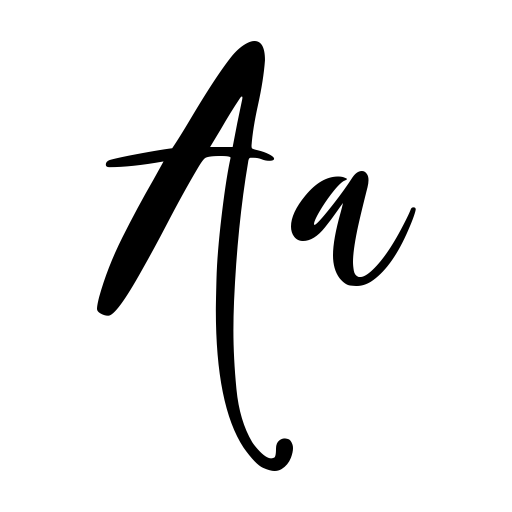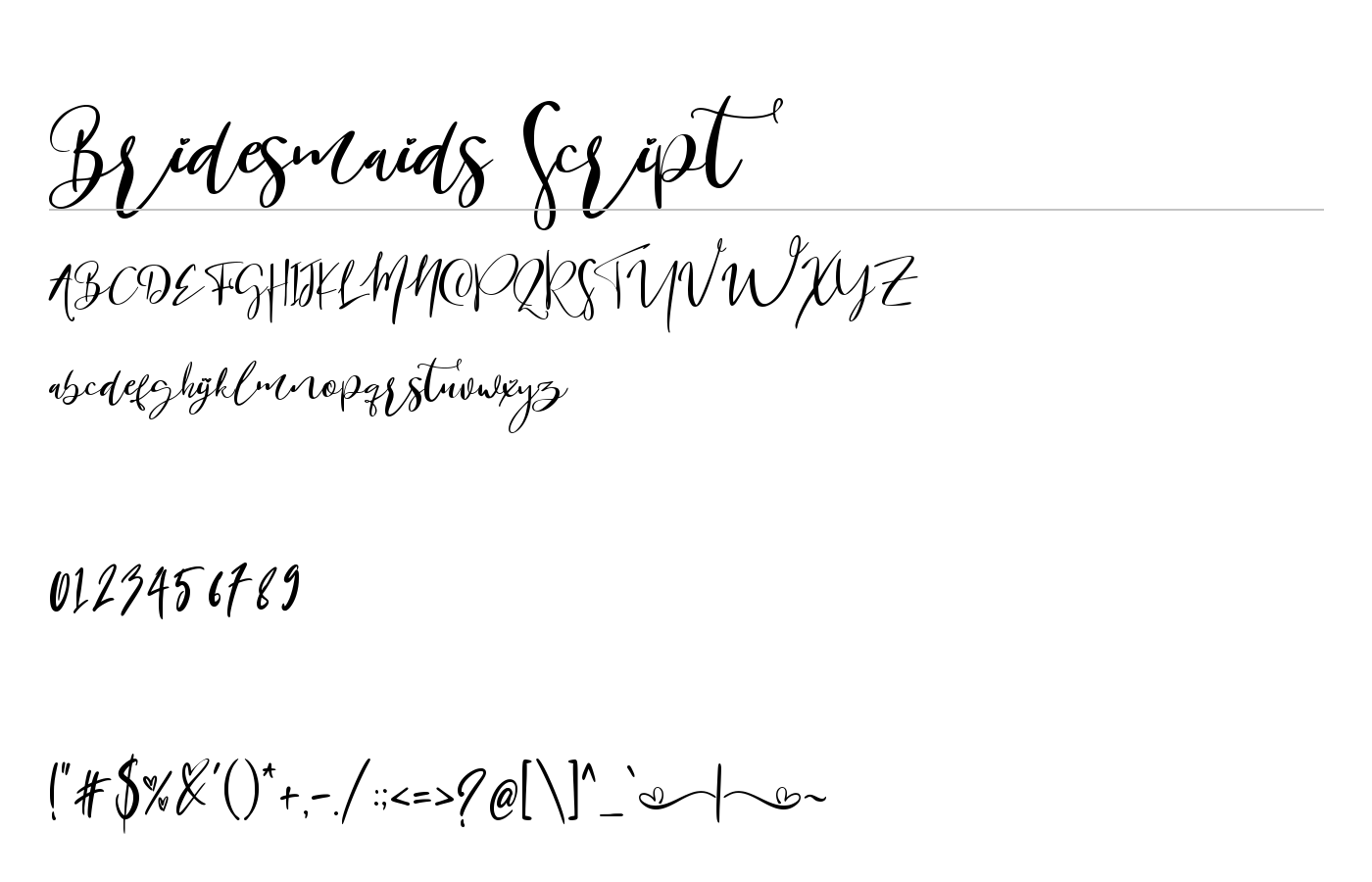
Bridesmaids Script is a delicate and elegant handwritten script font that features smooth, flowing strokes with charming heart-shaped details, giving it a romantic and playful feel. Its light, airy letterforms with varied stroke widths and graceful swashes make it perfect for wedding invitations, greeting cards, and feminine branding that seeks a warm and personal touch. This font works best in decorative headlines and logos where a soft, handcrafted style is desired.
Bridesmaids Script Font
About Bridesmaids Script Font
| Font family | Bridesmaids Script Font |
| Designer | Noftanti Studio 2020 |